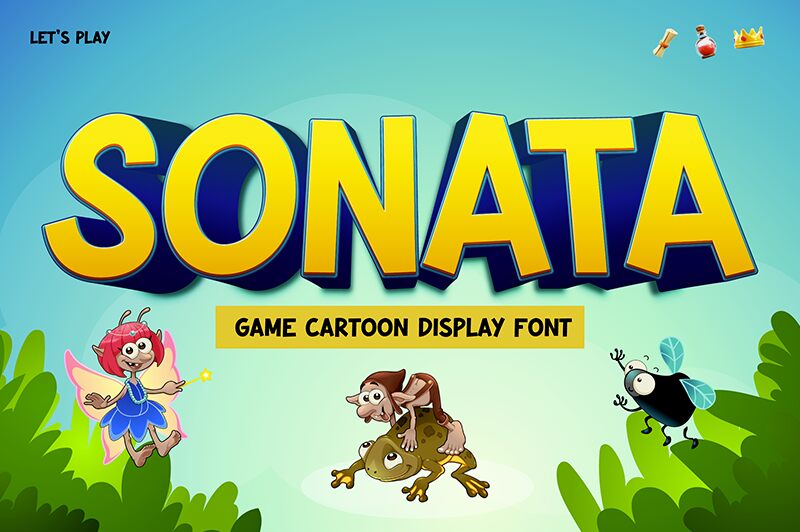
Sonata font from Tokopress is a playful and engaging cartoon display font that will draw attention to itself with the help of its bold, fanciful design. It is perfect for such projects that need a lot of life in it because it’s a very powerful and dynamic typeface.
Sonata is great for headlines, posters, children's books and other creative works as it looks interesting to attract any reader with its uniqueness. Those who want to give their designs some character can use this free font which can be downloaded at no cost for personal use.
SONATA — Schriftpräsentation